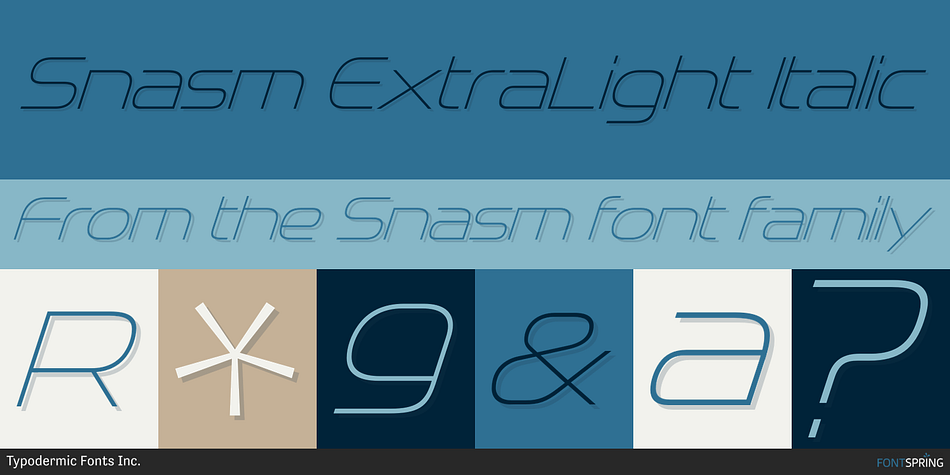
Snasm ExtraLight Italic
Snasm is a display sans font family. This typeface has twelve styles and was published by Typodermic Fonts Inc.
The Snasm typeface is a versatile and futuristic typeface that incorporates modular letter shapes from the late twentieth century, with a focus on wide letterforms. This typeface draws inspiration from the instrumental typeface designs of Donald Handel, known for their clean lines and sharp angles. But that’s not all—Snasm also pays homage to the sleek, high-tech design strategy of the late 1970s through the early 1990s, as seen in logos for Pepsi and the Nintendo Super Famicom.
The Snasm font is not just visually appealing, but it also includes a range of weights and meticulously constructed obliques, making it a valuable asset in any design project. With its stable, sparse caps and roomy lowercase, Snasm is perfect for conveying concepts of science, technology, and high-tech accuracy. This font keeps pace with the latest digital gadgetry and user interface trends, making it an excellent choice for designers who want to stay ahead of the curve.
Using Snasm in your designs can add a futuristic and modern touch to any project, whether you’re creating a new website, designing a mobile app, or working on a digital marketing campaign. Overall, Snasm is a typeface that is as functional as it is aesthetically pleasing, making it a must-have for any designer looking to create high-tech designs that stand out from the crowd.